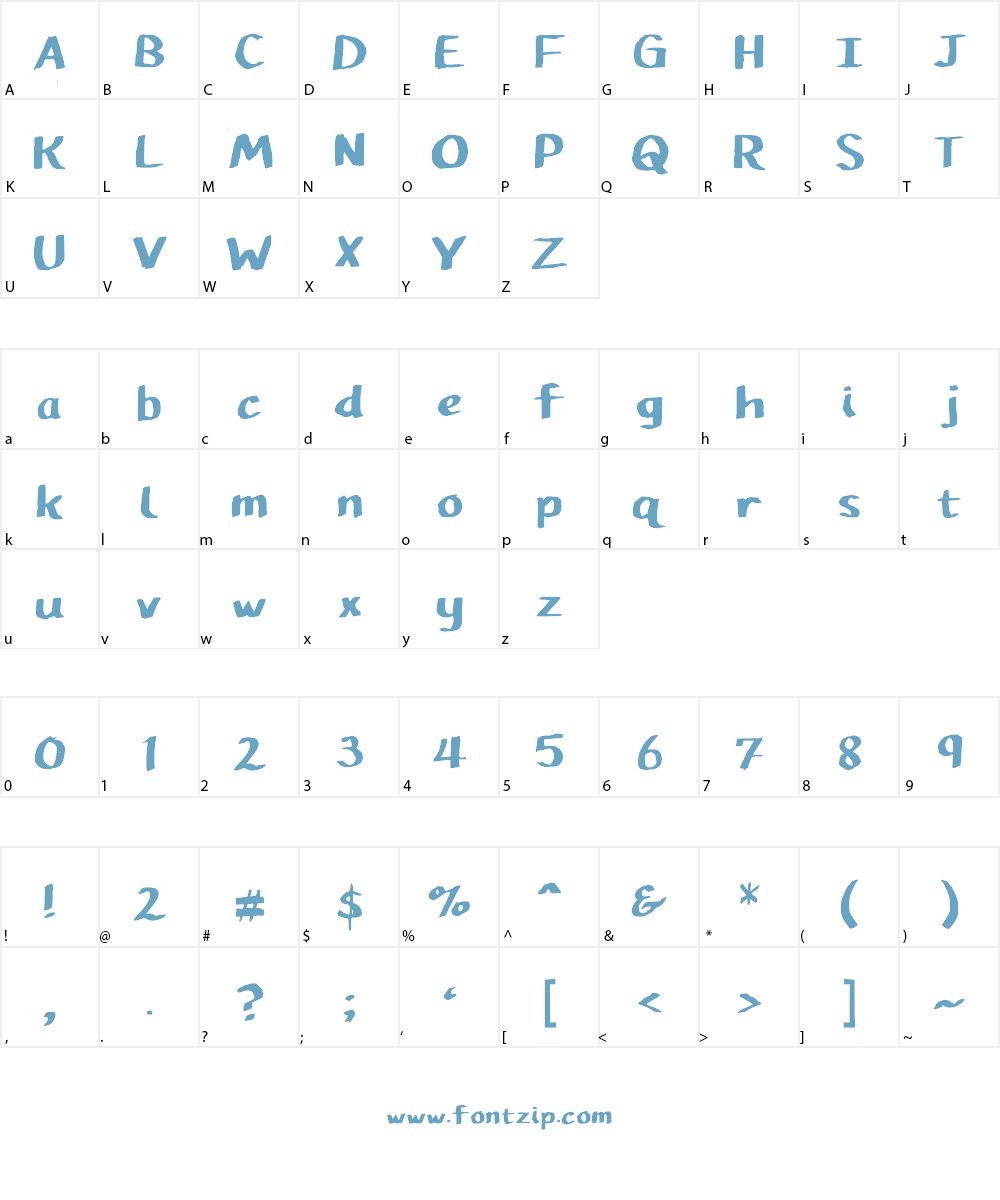
Now it's finally here, the new Pupil Calligraphic. Work started in 2014 (thus the date on union label certificate) but didn't get complete until 2015. Be sure to get our Pupil Light font here at fontspace too if you haven't already got it. Pupil Rounded Coming Soon.